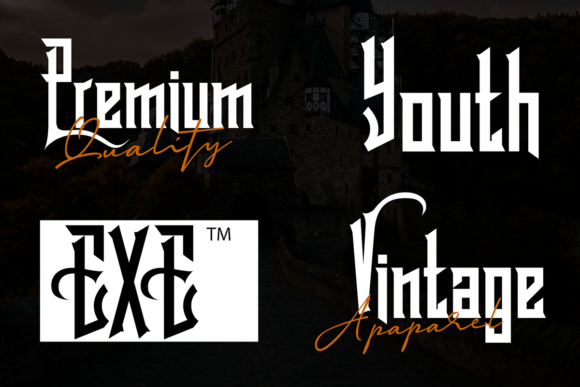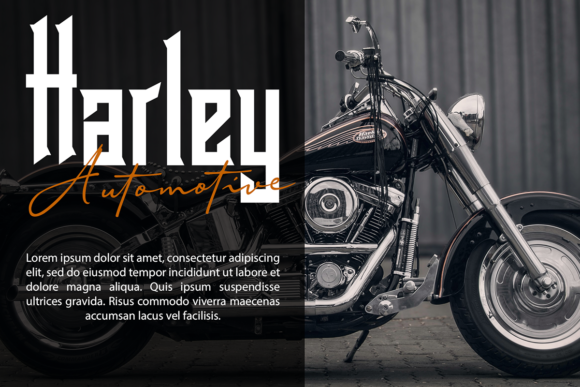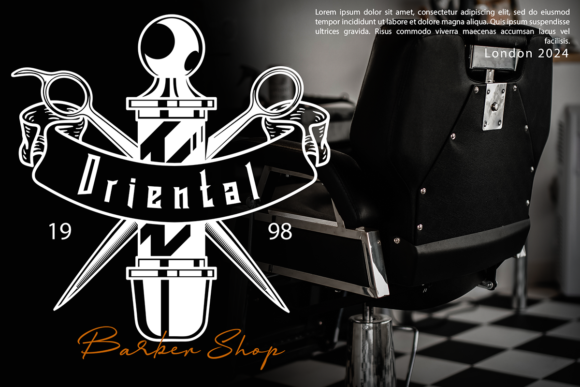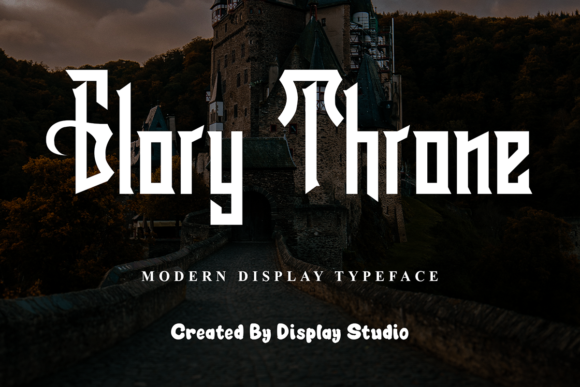
Introduction to Glory Throne Font
Glory Throne is a sophisticated and mysterious display font.
Its characters embody charm and elegance and can transform your creative designs into true pieces of art .
Key Features of Glory Throne Font